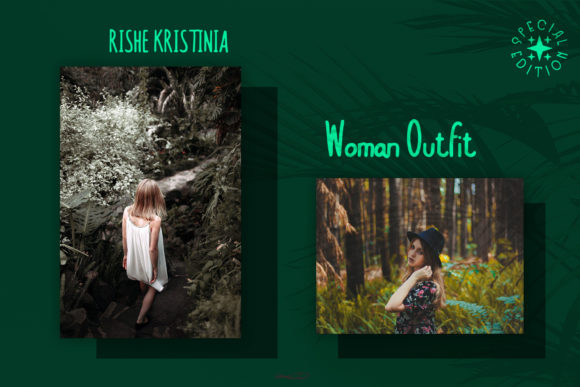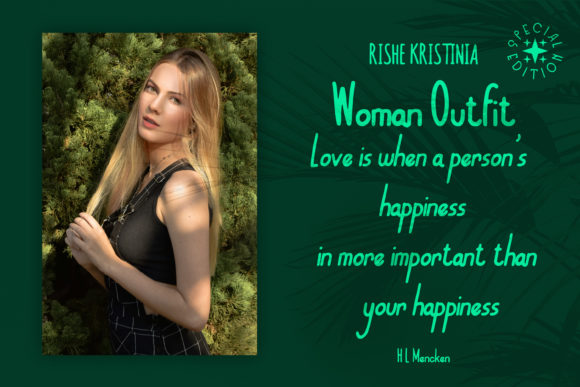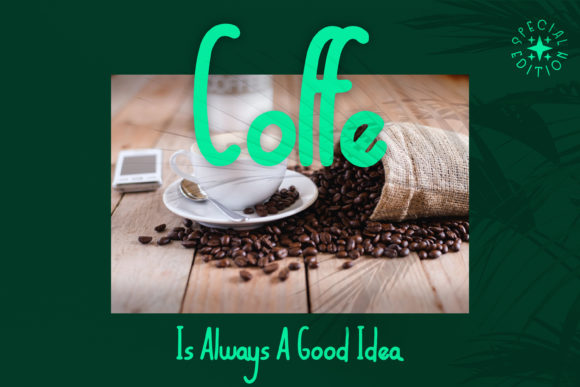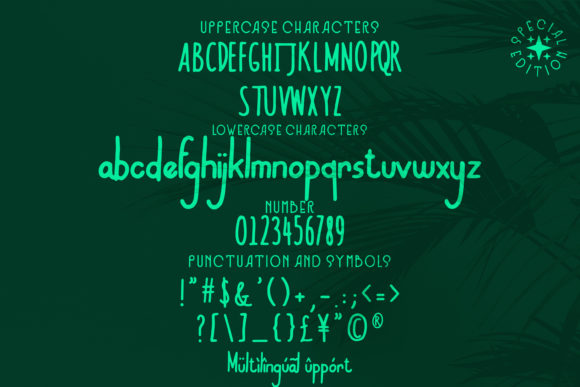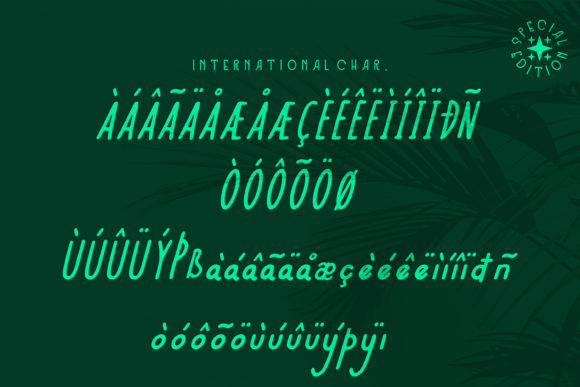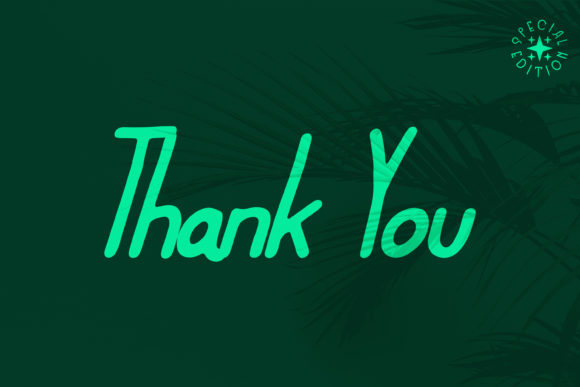
Introduction to Hella Fella Font
Imagine you’re brainstorming a new branding project, and you’re struggling to find the perfect font to give your brand that extra oomph. You scroll through design resources, searching for something that exudes high quality and sophistication. Suddenly, you stumble upon the Hella Fella Font – a stunning sans serif font that’s sure to elevate your creative project to the next level.
As a designer, you know how valuable a great font can be. It’s the difference between a design that’s just okay and one that truly stands out. The Hella Fella Font is perfect for designers who want to add a touch of luxury to their projects, whether it’s a logo, product packaging, or even a simple quote on a mug. With its sleek lines and modern feel, this font is a game-changer for any creative endeavor.
Key Features of Hella Fella Font
- Characteristics include bold, playful lines and a distinctive aesthetic that sets it apart from standard fonts.
Honest Review: Hella Fella Font
I recently stumbled upon the Hella Fella Font while searching for a unique font for my creative project. As a designer, I appreciate high quality design resources, and I was excited to give this one a try.
The first thing I noticed was the transparent background, which is always a plus for me when working on designs that require overlays or complex compositions. The font itself is quite playful and fun, with a lot of character.
- Unique and creative design
- Transparent background for easy editing
- Works well for creative projects that require a fun, playful tone
- Limited font styles and weights
- Not suitable for formal or professional designs
Overall, I was impressed with the Hella Fella Font, and I can see it being a great addition to many creative projects. While it may not be the best fit for every design, it’s definitely a high quality resource that’s worth checking out.
To get the most out of the Hella Fella Font, use it in conjunction with other design elements that feature a similar aesthetic. The font’s minimalist style pairs well with clean lines, simple shapes, and bold colors.
The Hella Fella Font is commonly used in creative projects that require a modern and sleek look. It’s ideal for branding, marketing materials, and social media graphics. The font’s high-quality design and transparent background make it a versatile resource for designers working on a wide range of creative projects.